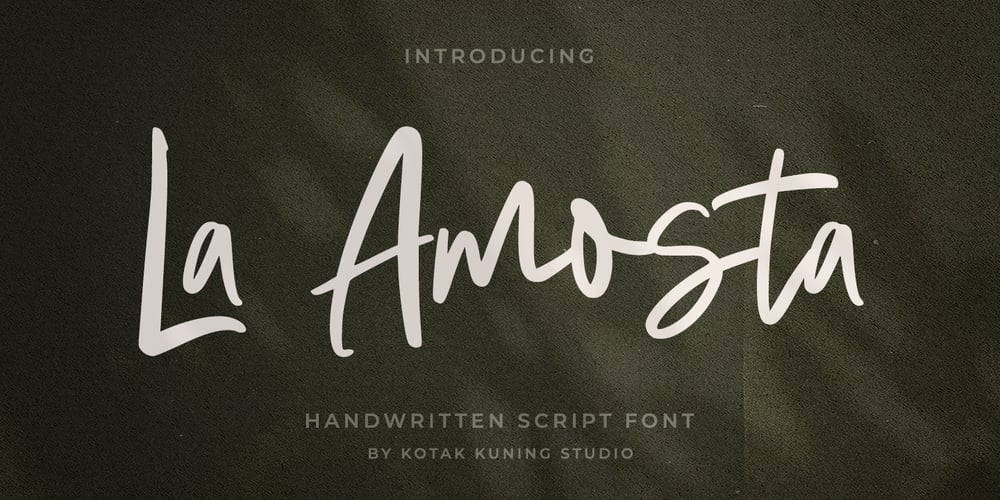
La Amosta Font Family was designed by Arif Dwi and published by Kotak Kuning Studio. La Amosta contains 1 styles and family package options. La Amosta is a handwritten signature script with a natural & stylish flow. This font has a multitude of natural-looking ligatures in its OpenType features – making the font look as close to natural handwriting as possible. This collection of scripts is perfect for personal branding.This Font is perfect for many different projects such as logos & branding, invitation, stationery, wedding designs, social media posts, advertisements, product packaging, product designs, label, photography, watermark, special events, or anything.We highly recommend using a program that supports OpenType features and Glyphs panels such as Adobe Illustrator, Adobe Photoshop CC, Adobe InDesign, or CorelDraw, so you can see and access all Glyph variations.